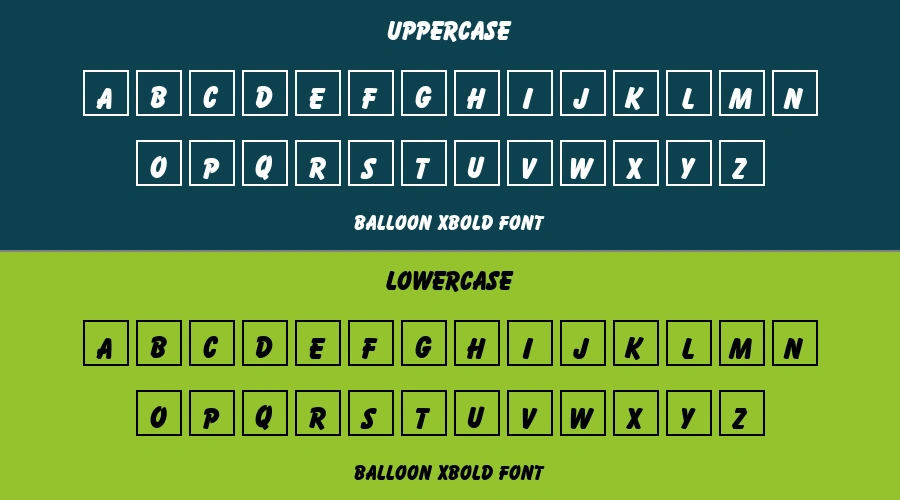
About Balloon Xbold Font
Balloon Xbold Font stands out for its distinctive combination of natural flow and reliability. Ideal for poster titles, it provides the originality and system compatibility that professional projects demand. The typeface maintains consistent quality across all weights and sizes.
Key features include refined organic forms and practical decorative sets, enhancing typographic expression. In book chapters applications, Balloon Xbold Font demonstrates exceptional headline impact. The cap height ratio and subtle details contribute to its distinctive character and professional appeal.